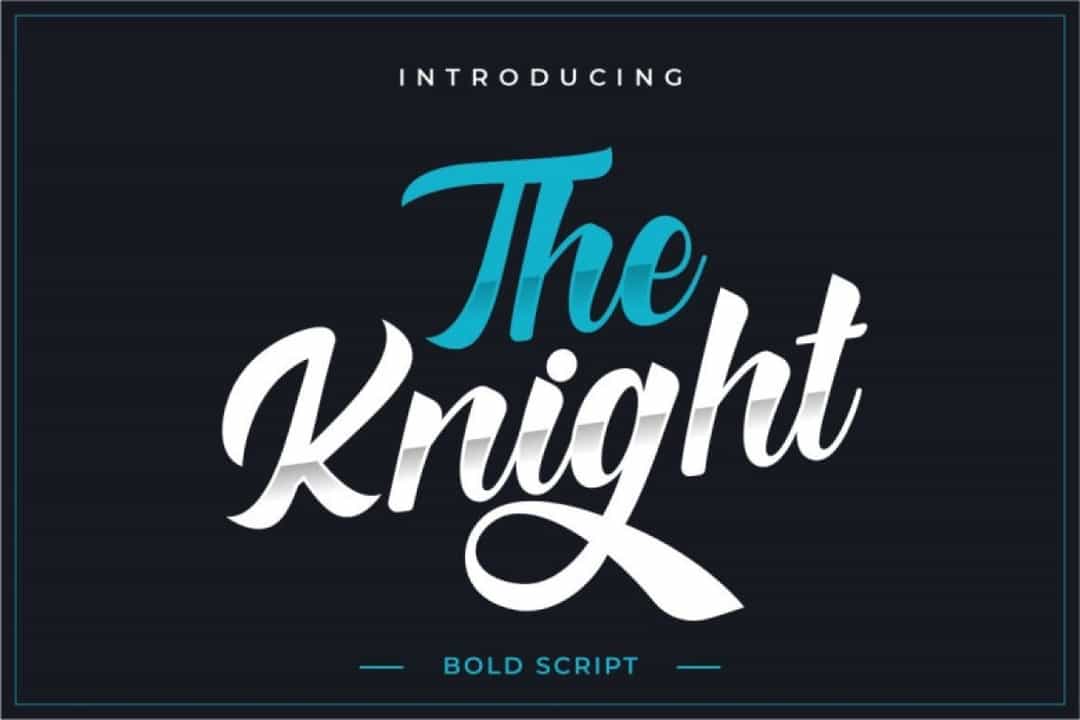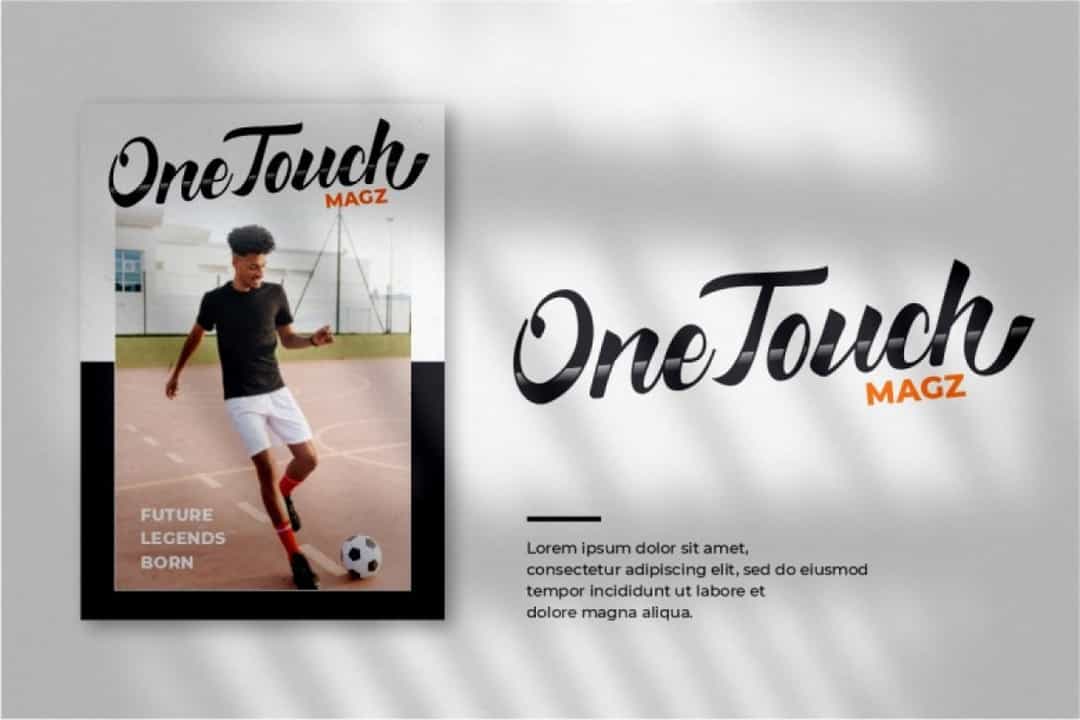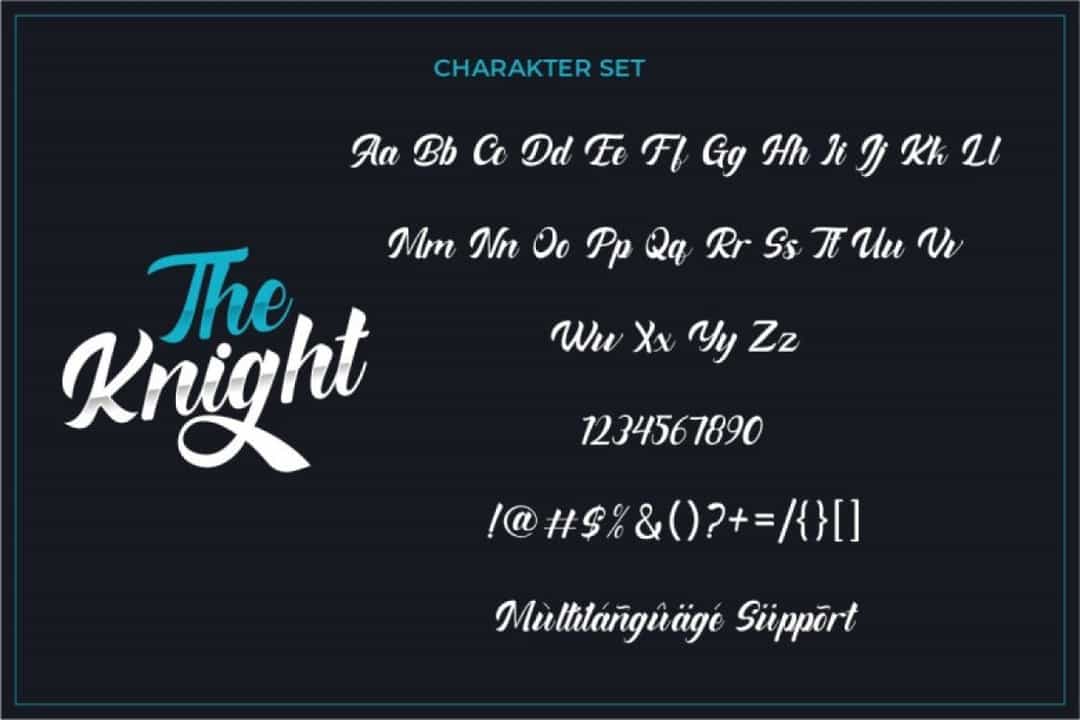
The Knight Bold Script Font exudes playfulness and nostalgia, with an amazing vintage aesthetic. Perfect for adding that retro edge to any design concept! Furthermore, being PUA encoded, all its glyphs, swashes, and characters can be easily accessed!